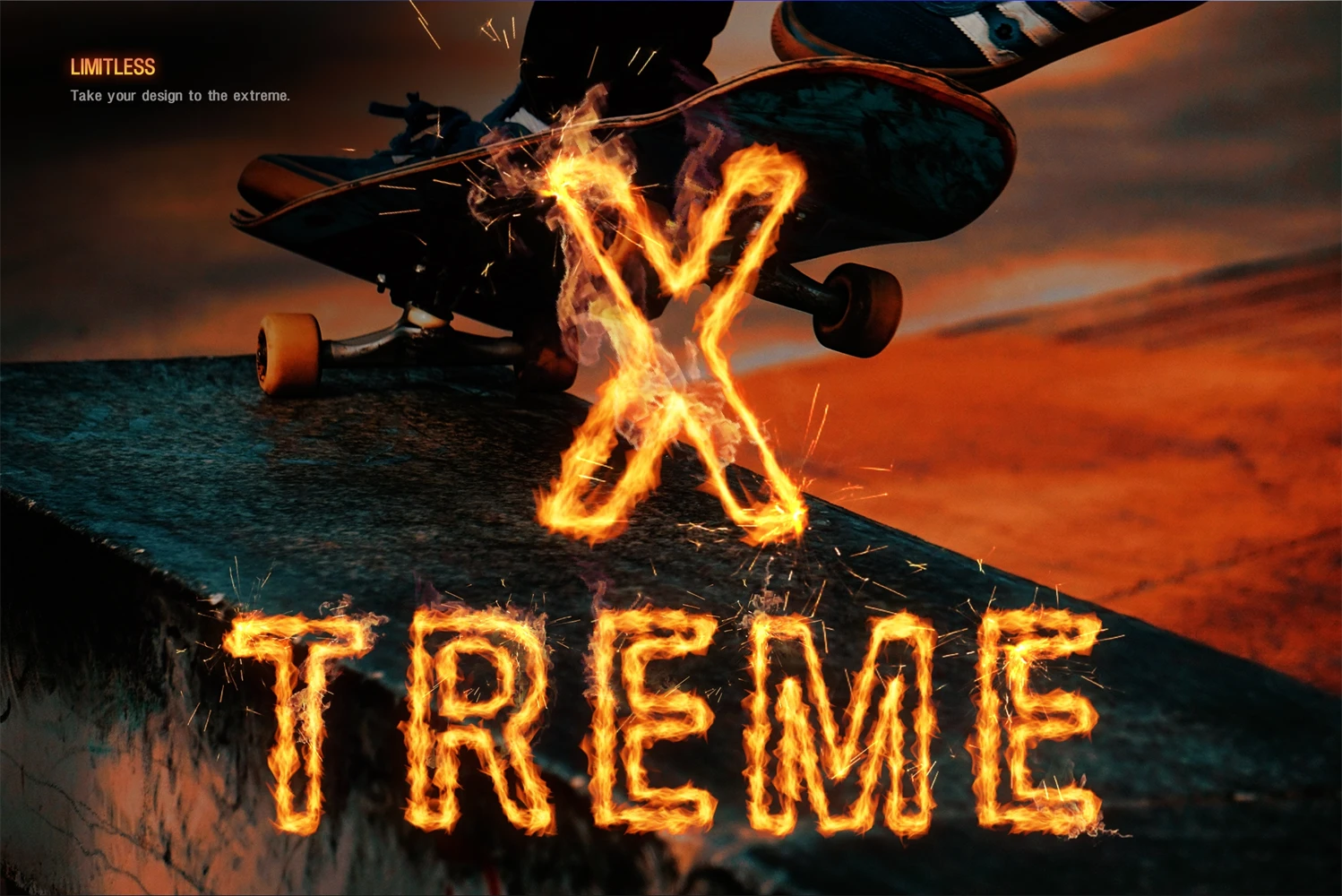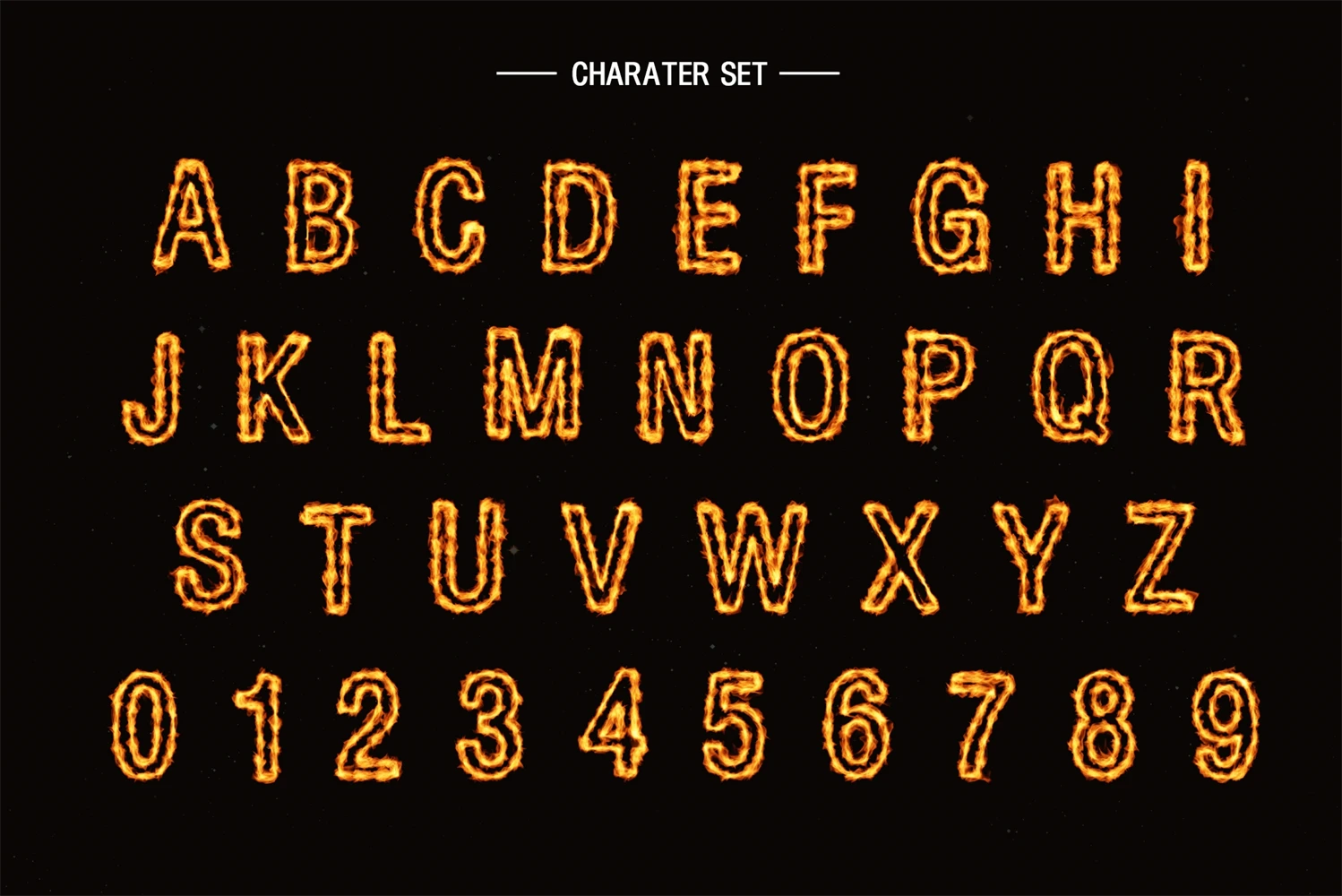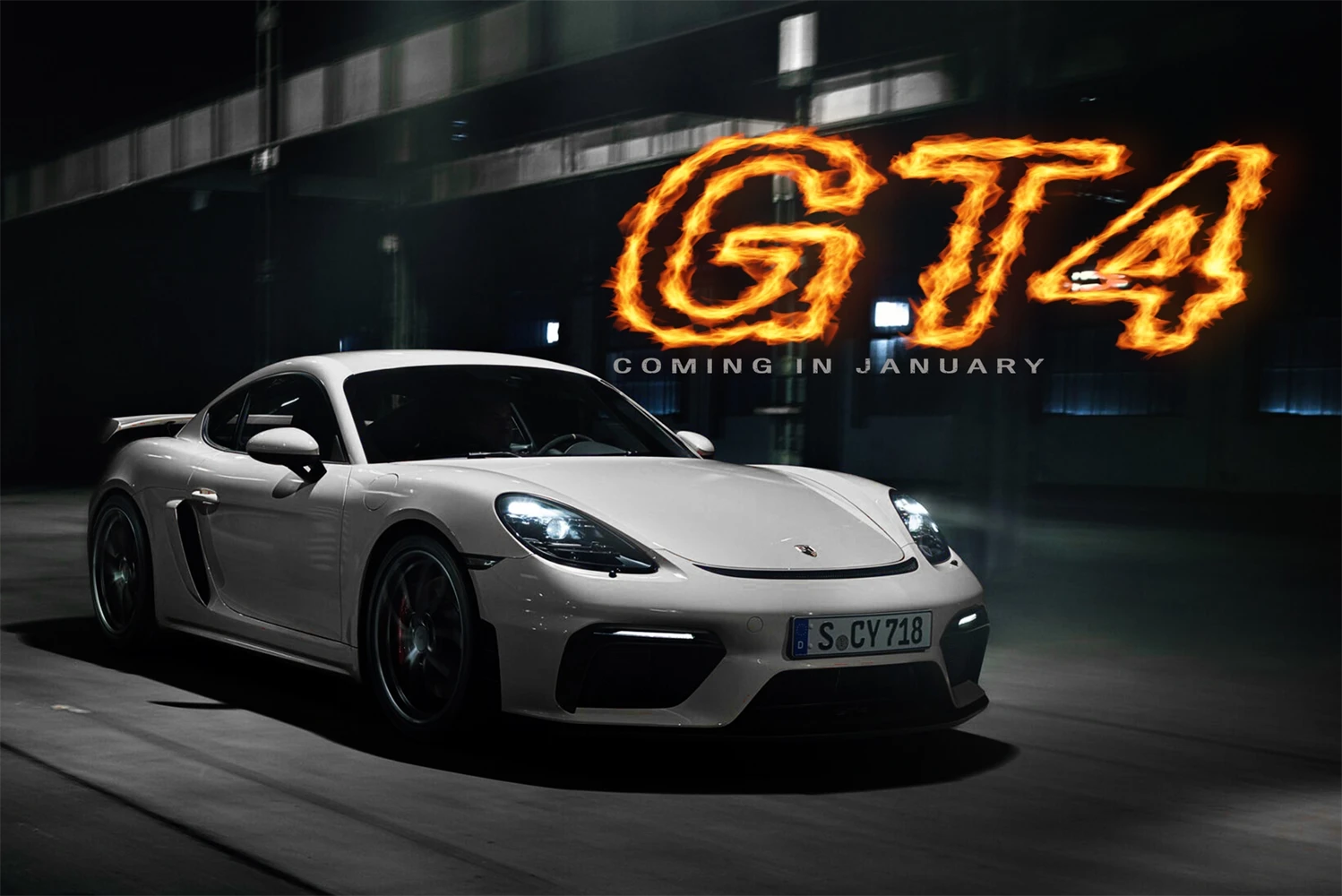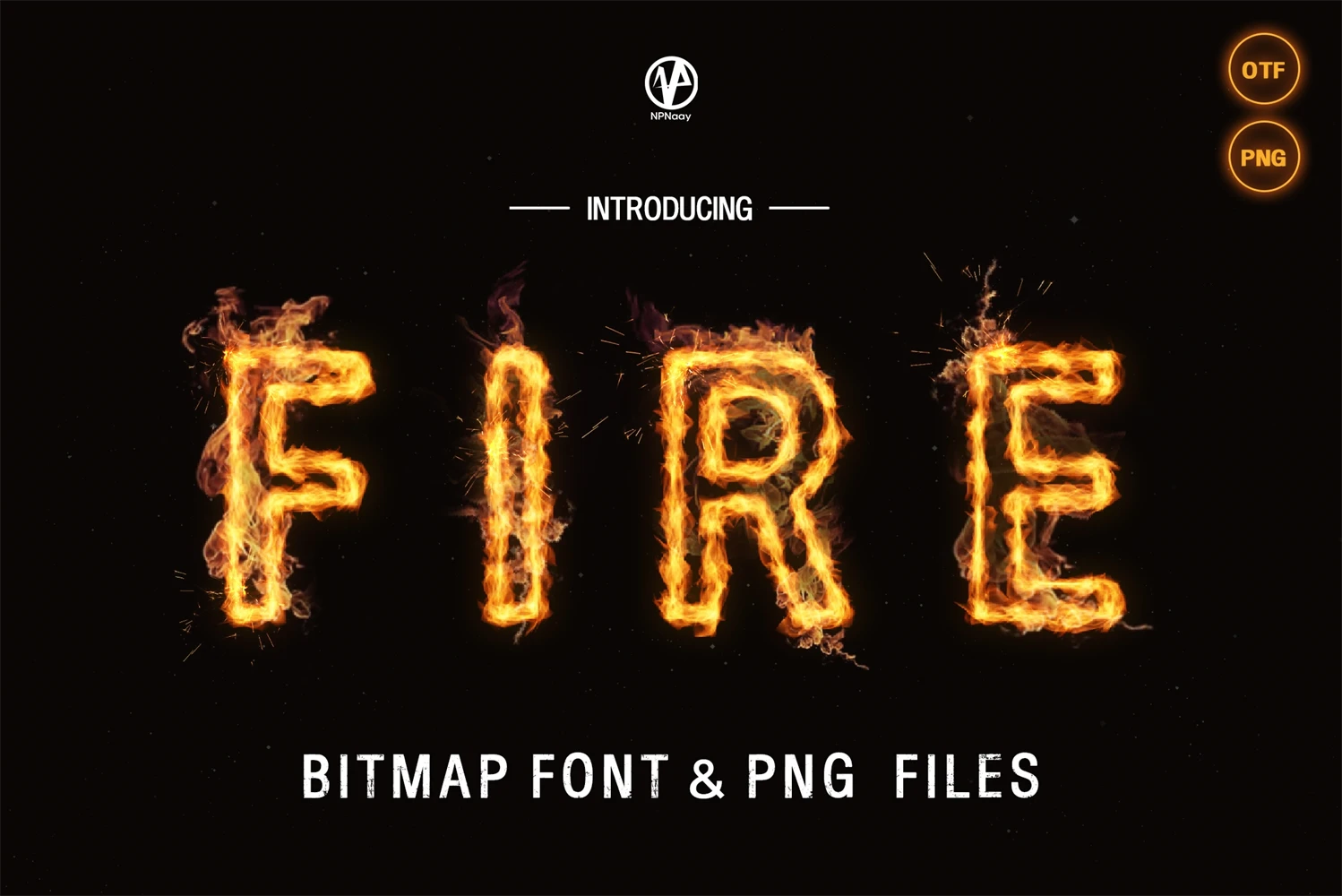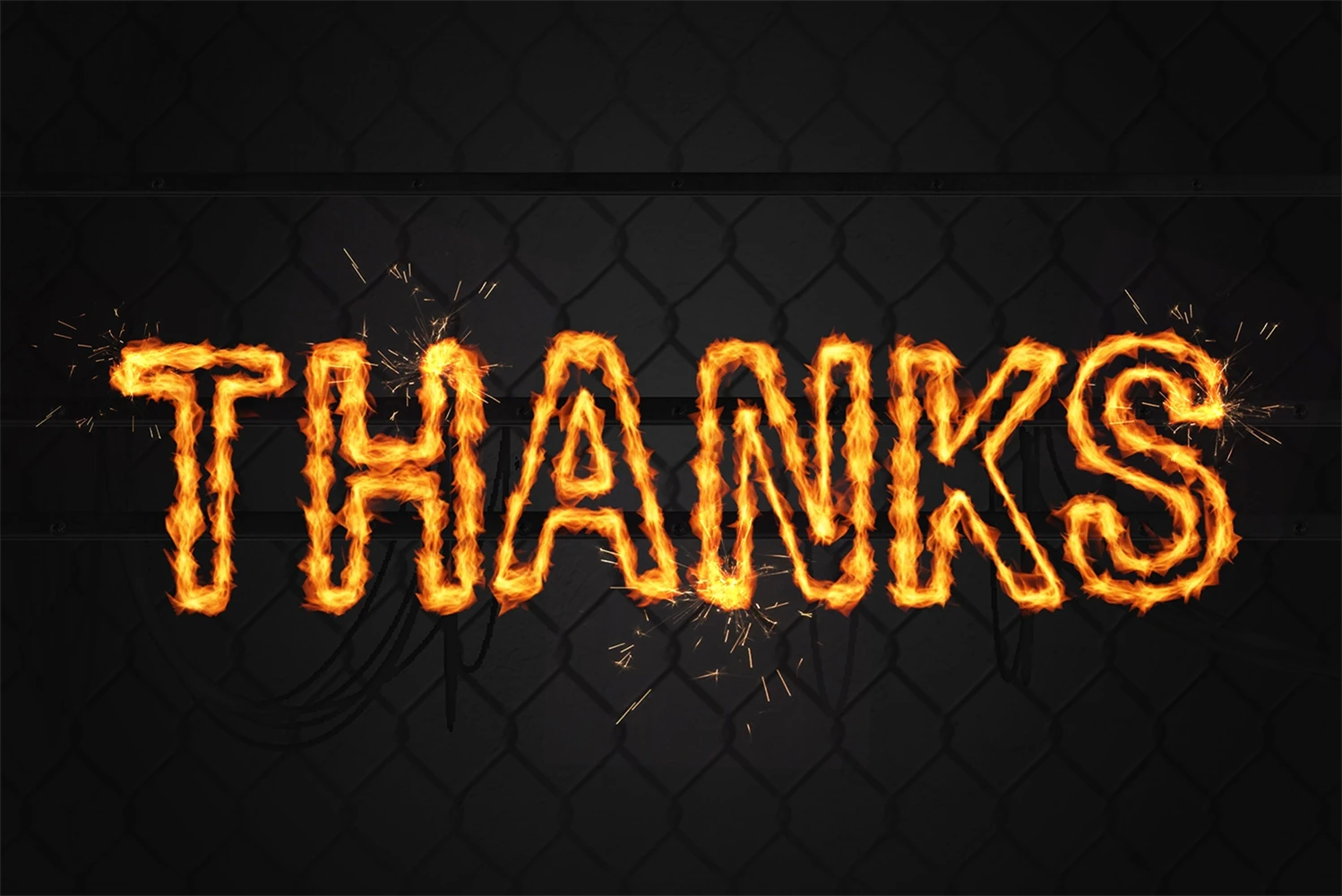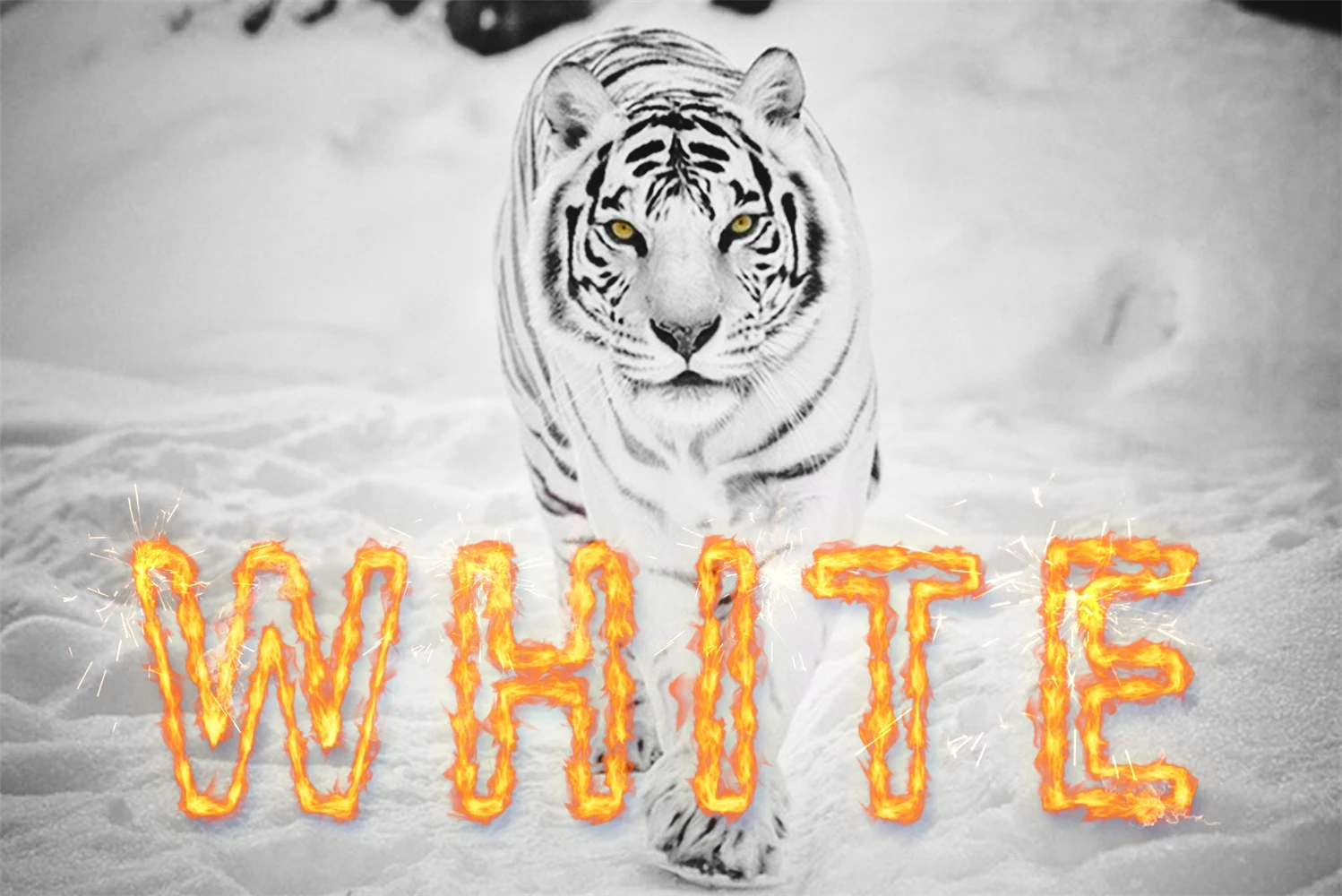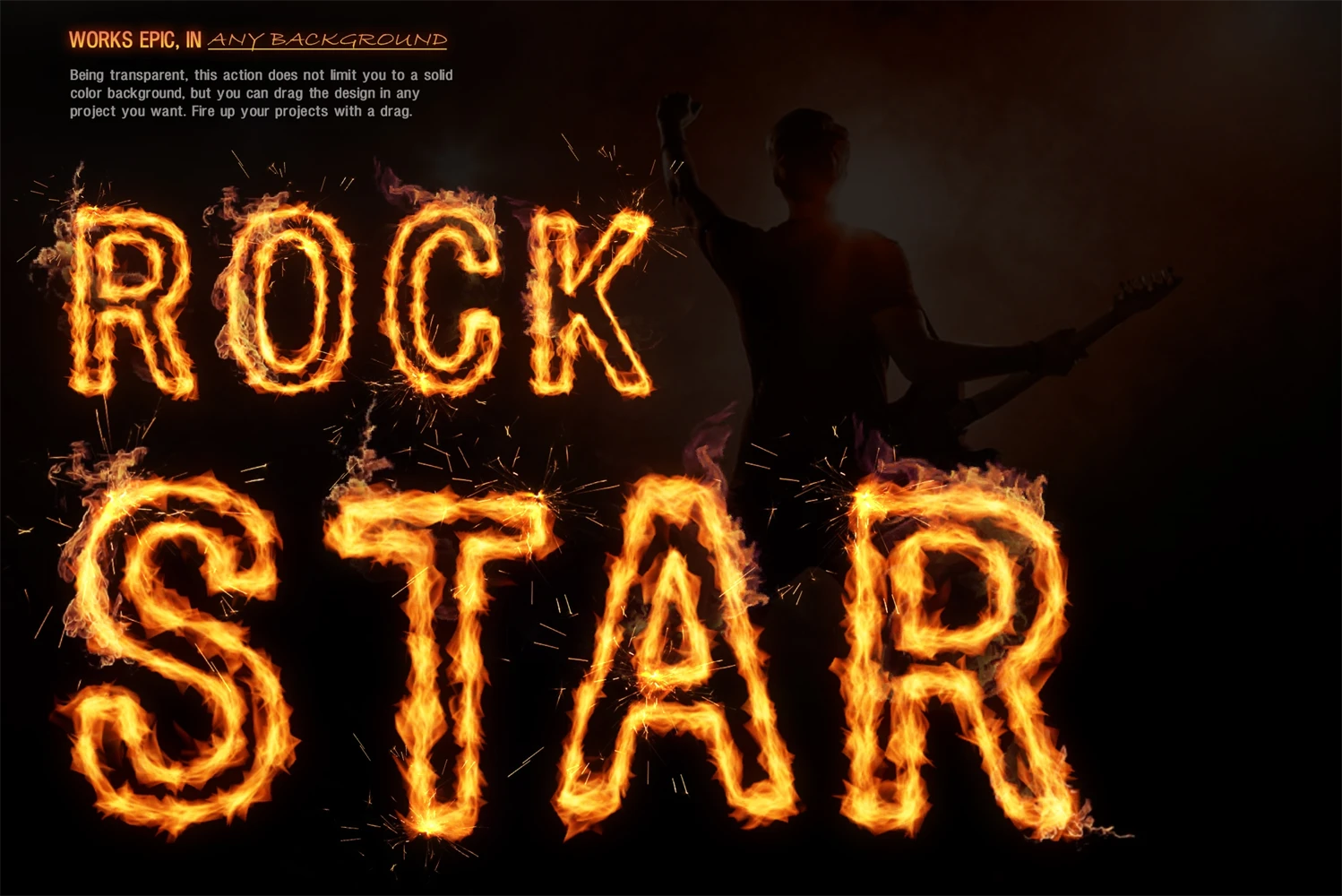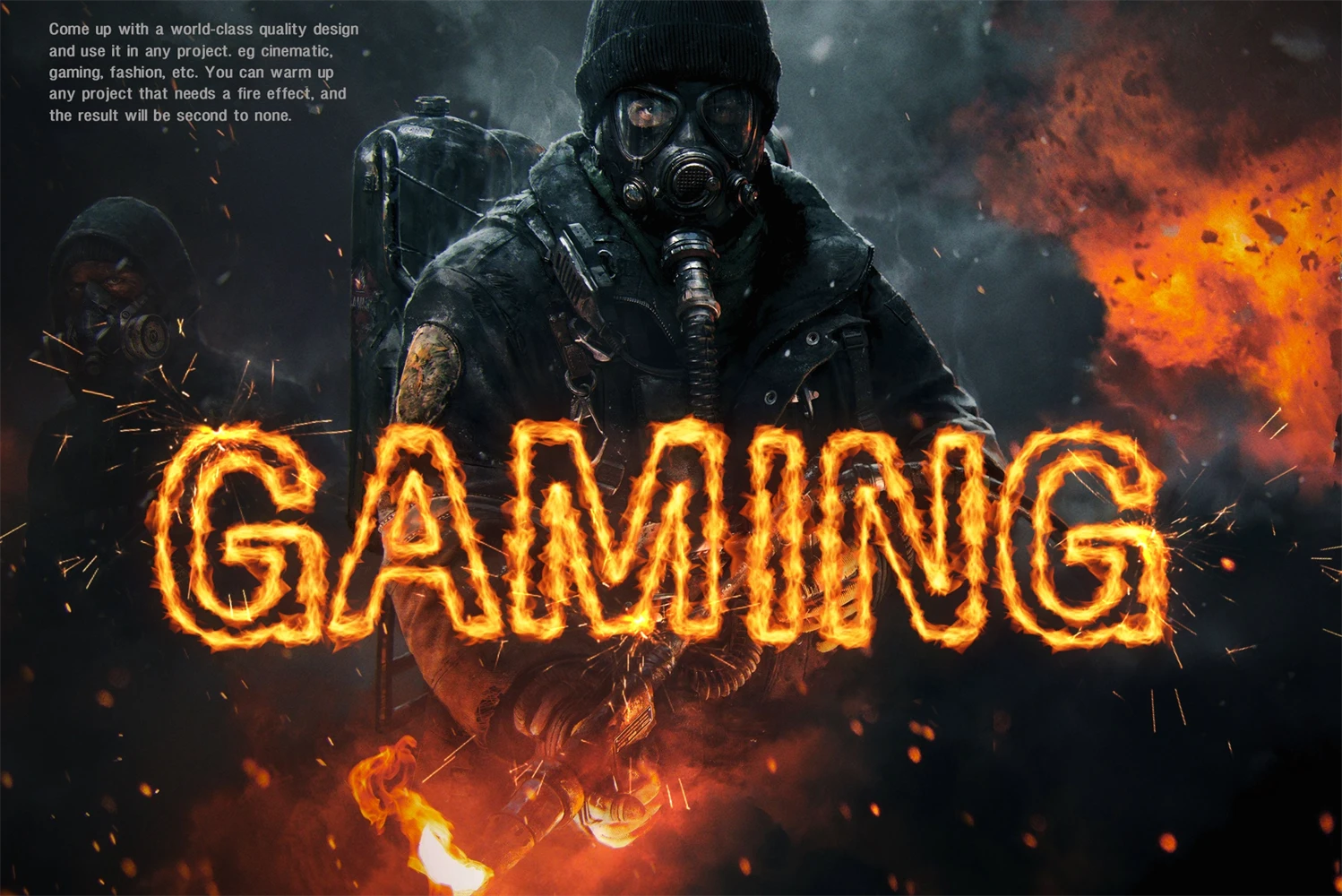
Fire is quirky fire color font. perfect for use come up with a world-class quality design and use it in any project. eg cinematic, gaming, fashion, etc. You can warm up any project that needs a fire effect, and the result will be second to none.